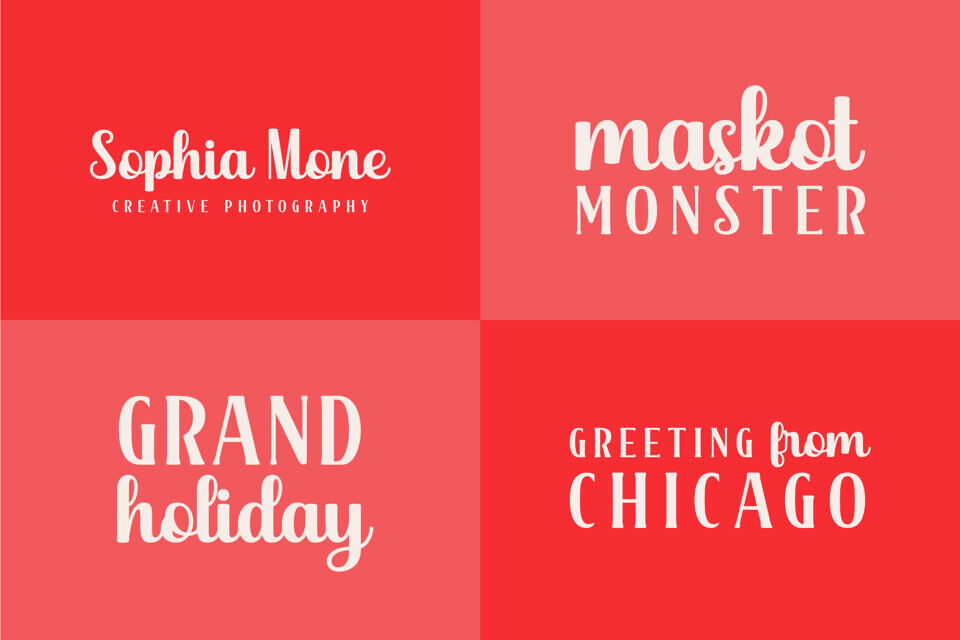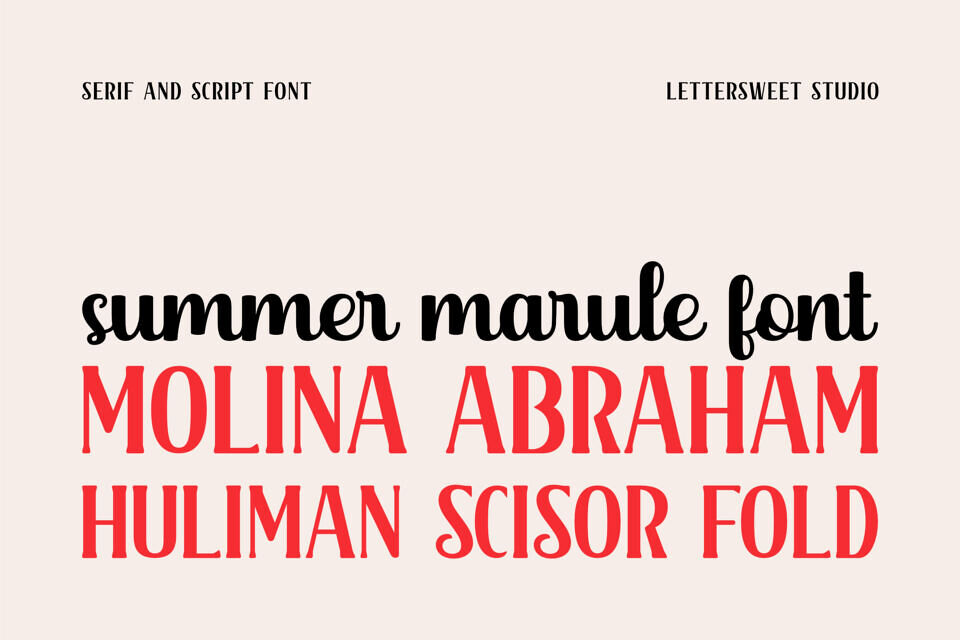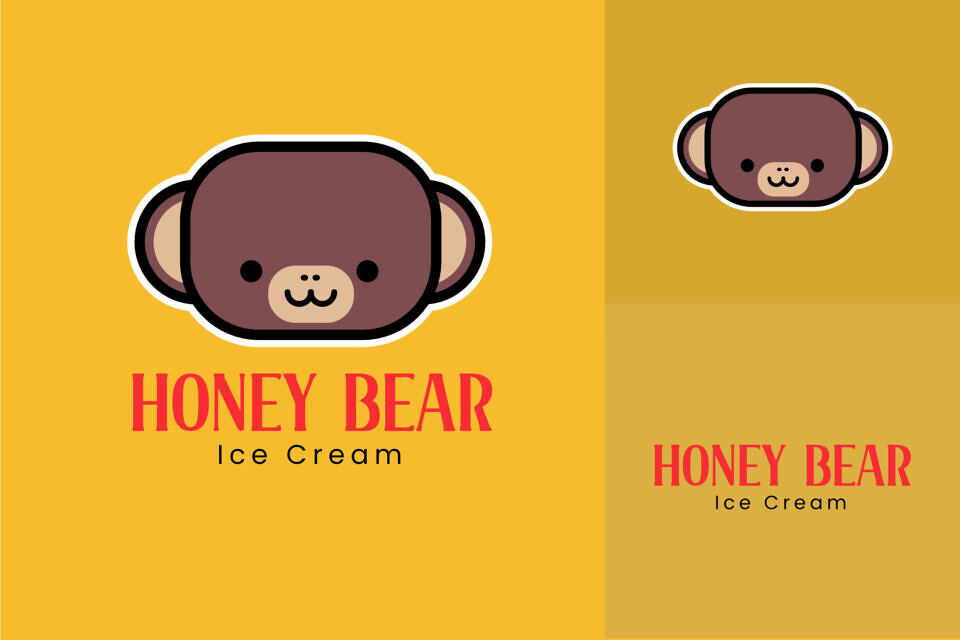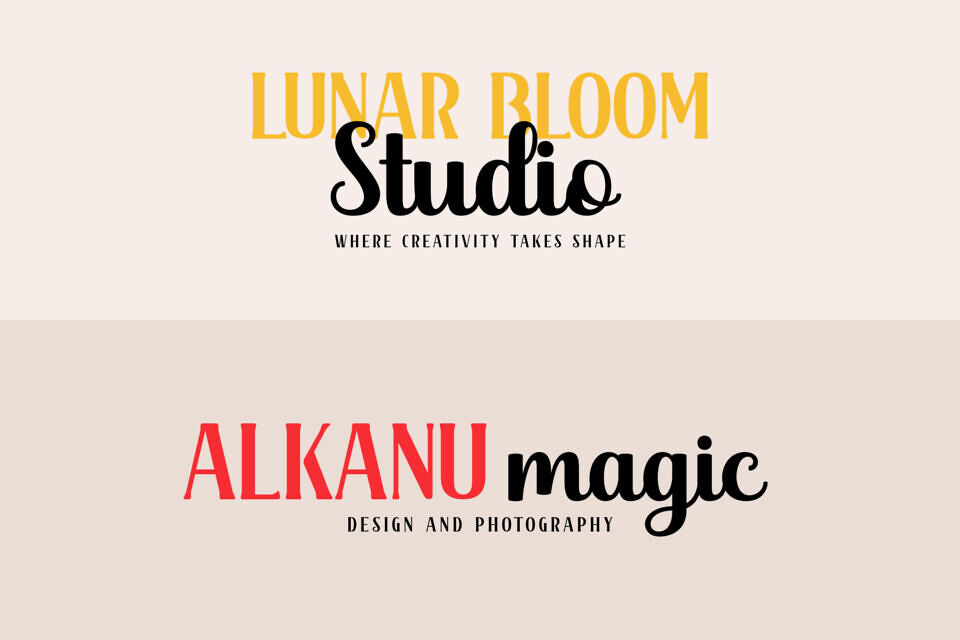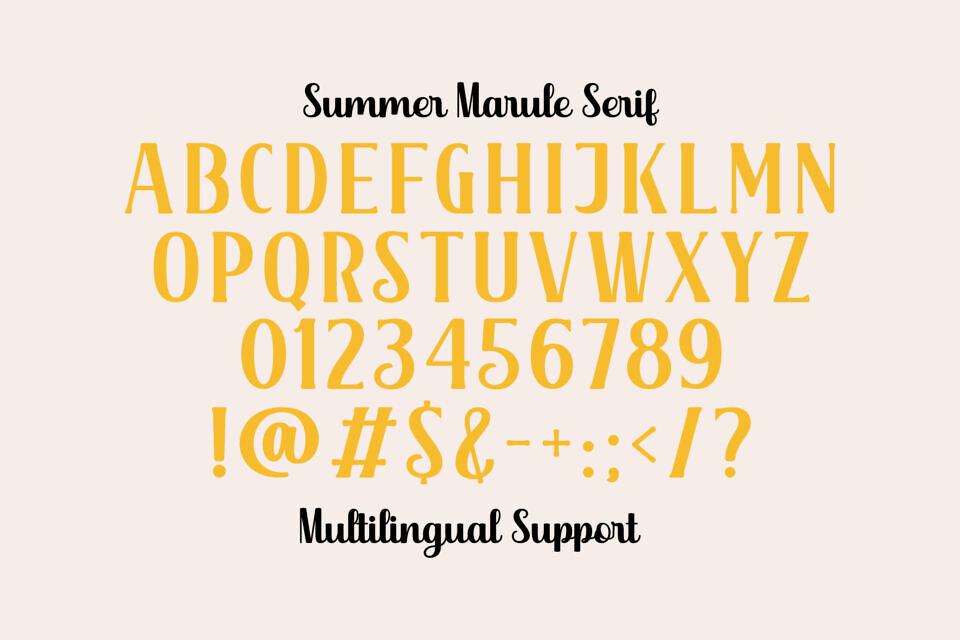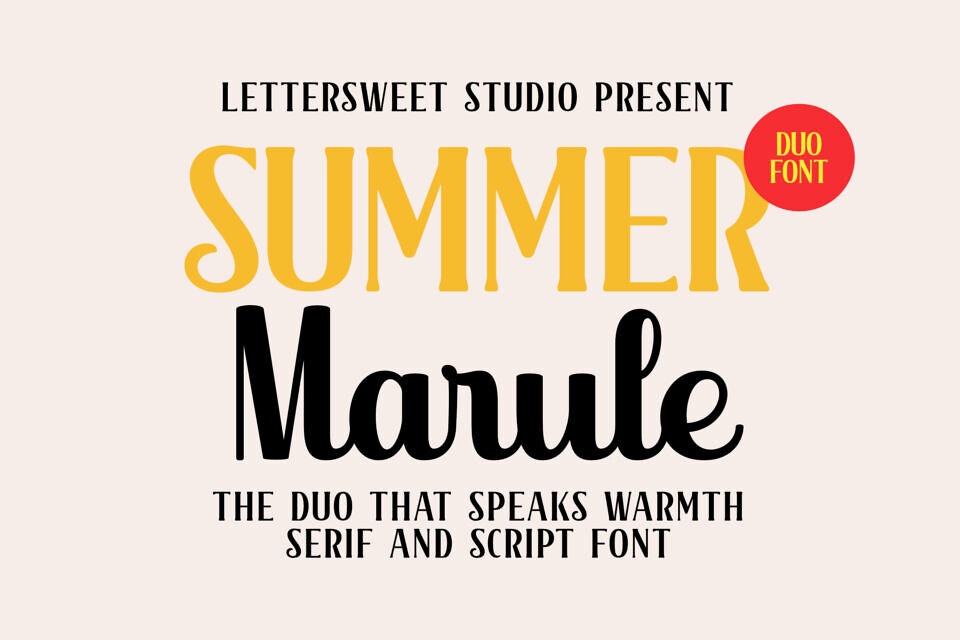
Summer Marule Font
Introducing Summer Marule – a charming duo font that blends the elegance of a bold serif with the smooth personality of a modern script. Perfect for adding a warm, sunny vibe to your designs, this font pair is ideal for branding, packaging, invitations, posters, social media graphics, and more.
With its playful yet sophisticated look, Summer Marule captures the essence of creativity and joy. The serif style delivers strong headlines and standout titles, while the script style adds a friendly, human touch. Whether you’re designing for summer events, lifestyle brands, or cheerful marketing campaigns, this duo font will make your work shine.